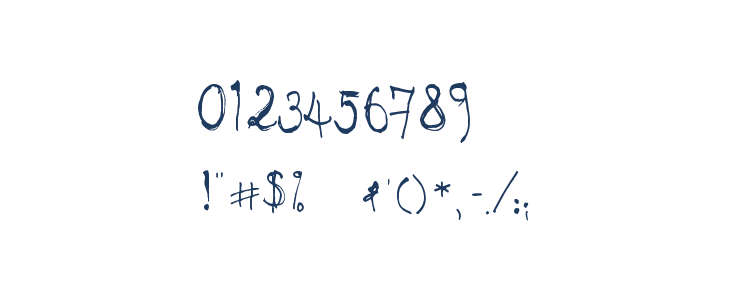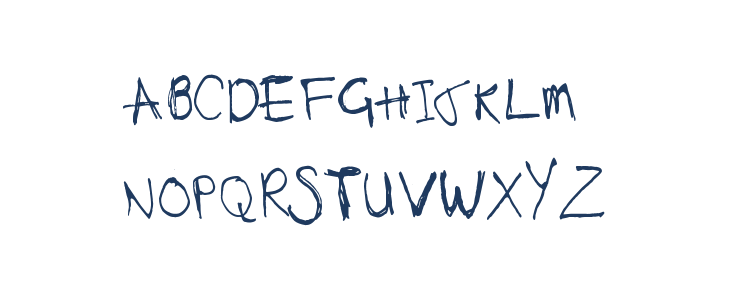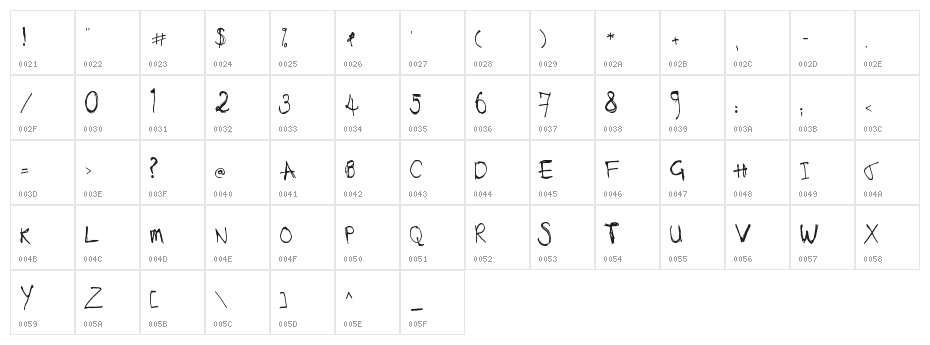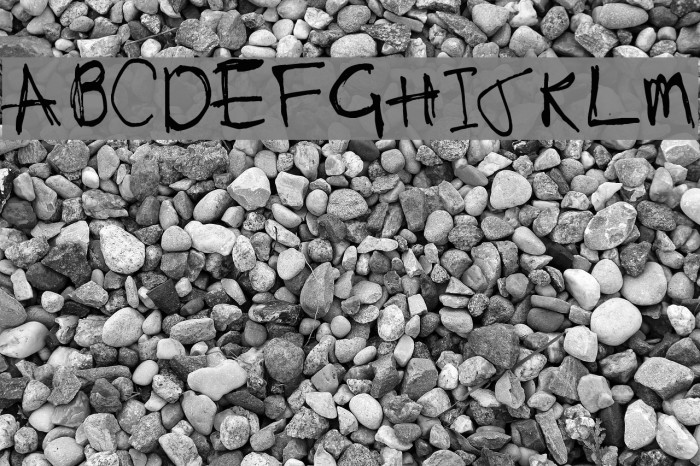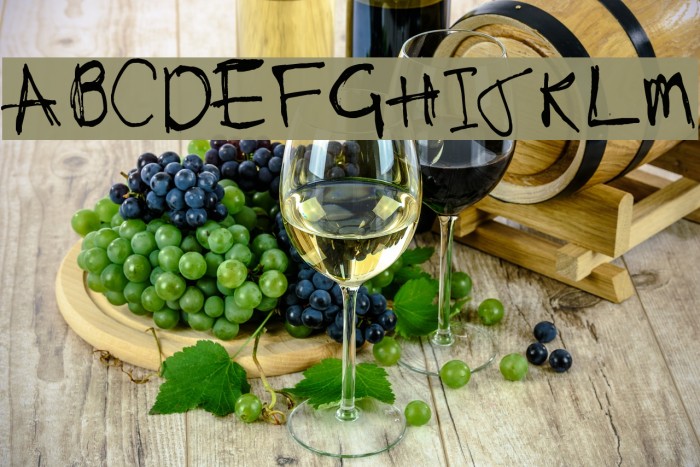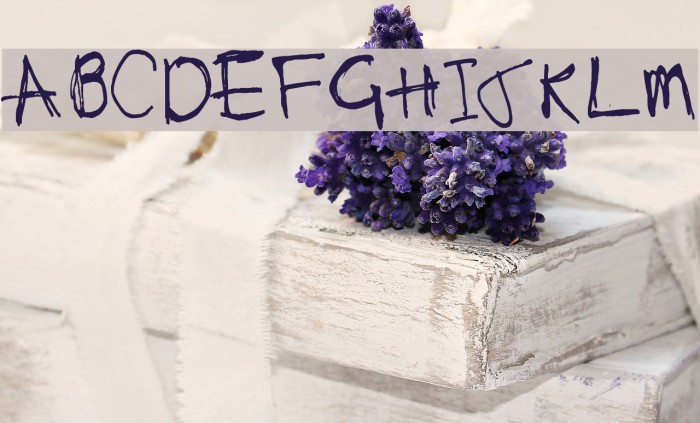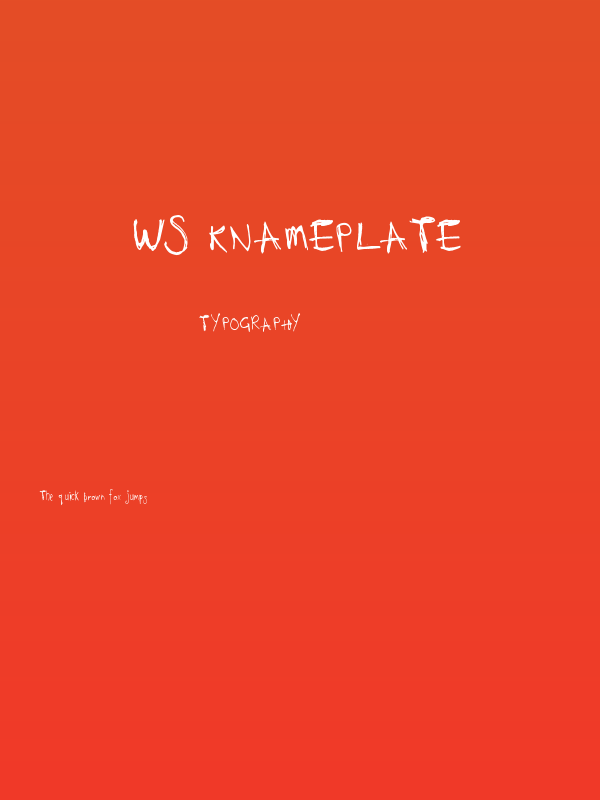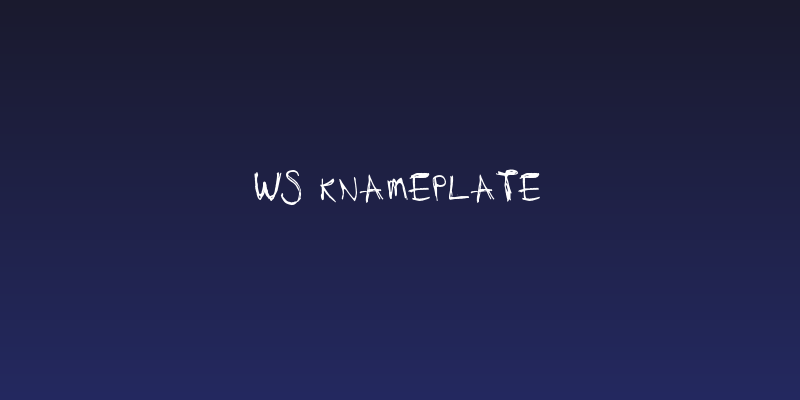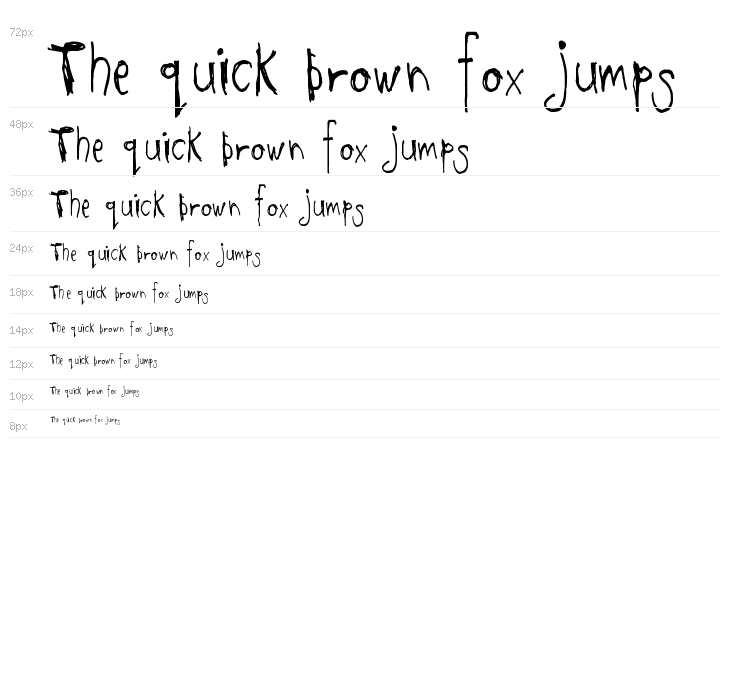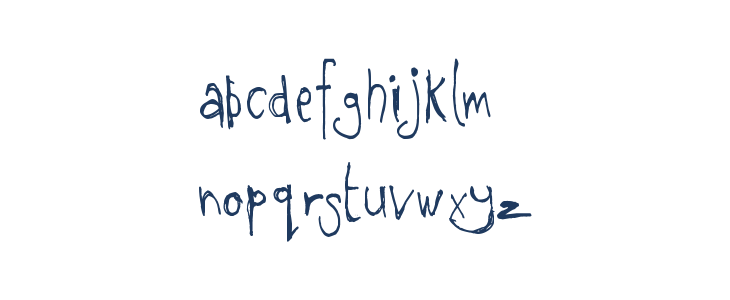
WS KnamePlate Font
WS KnamePlate Description
This font exhibits a unique, hand-drawn style with an irregular and playful appearance. The characters are unevenly weighted, giving them a whimsical and artistic feel. The uppercase letters are bold and slightly distorted, while the lowercase letters maintain a consistent yet quirky design. Numbers and special characters follow the same playful theme, adding to the font's overall charm. The strokes are varied, with some letters featuring thicker lines and others appearing more delicate, creating a dynamic visual contrast.
| Use Case | Logos, Posters, Creative projects |
| Proposed Projects | Ideal for creative projects such as children's book illustrations, artistic posters, or unique branding materials that require a playful and informal touch. |